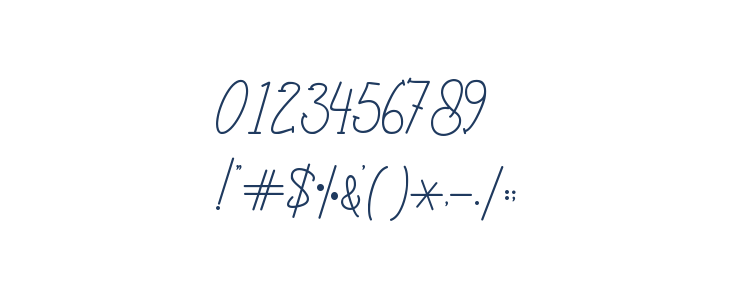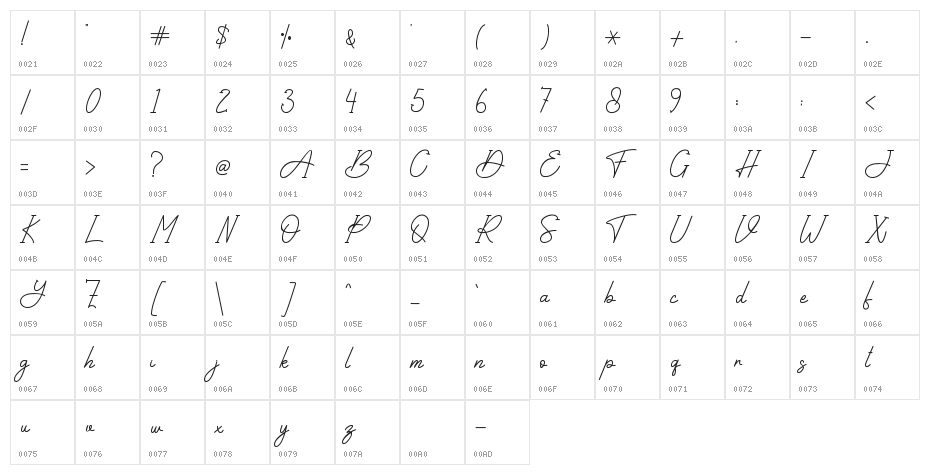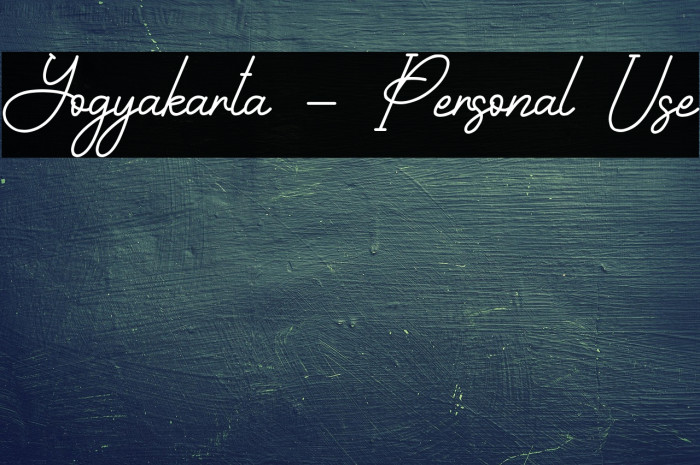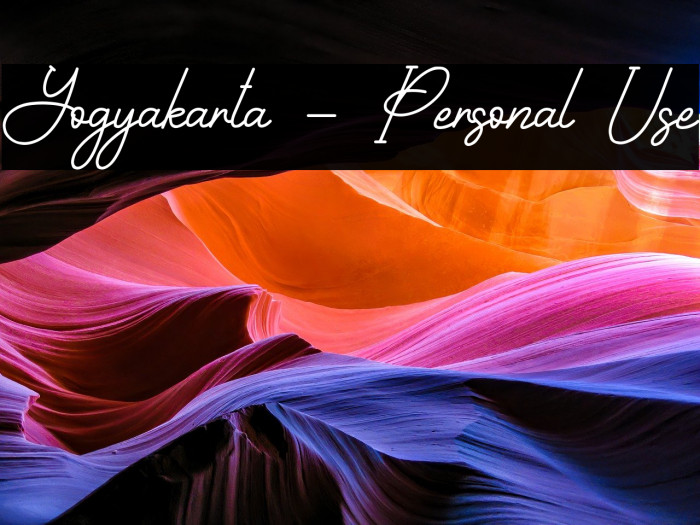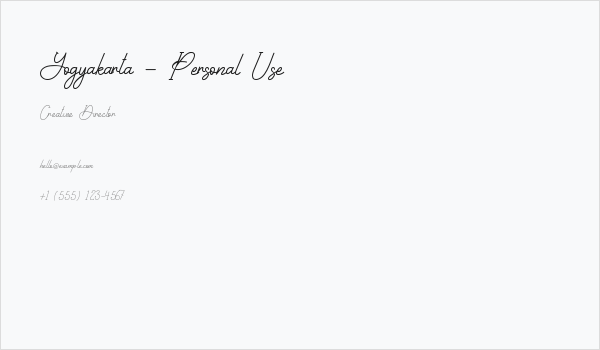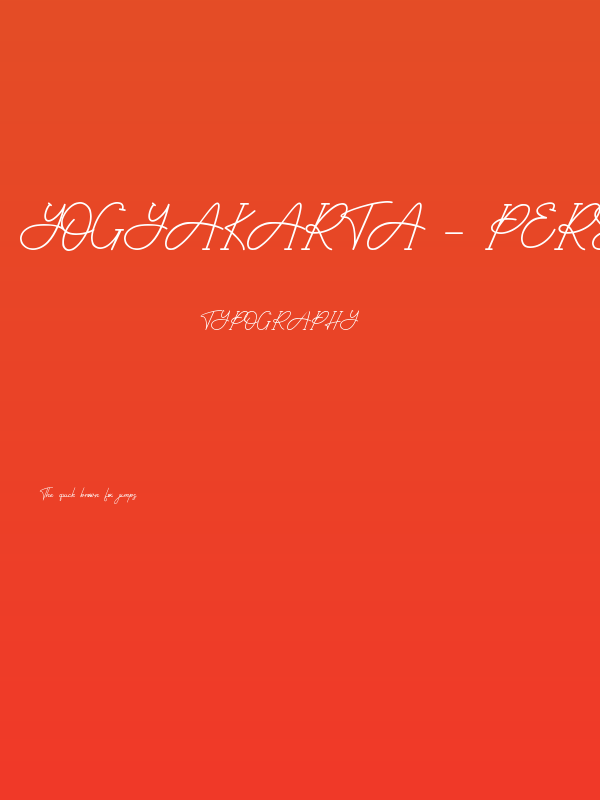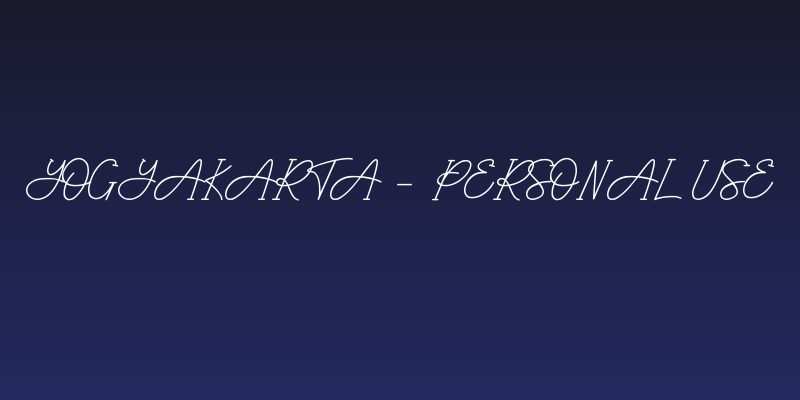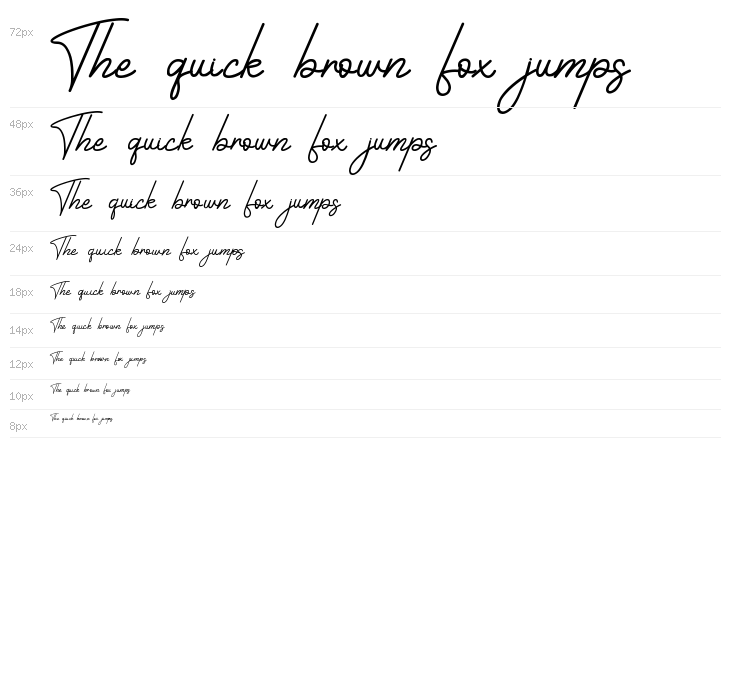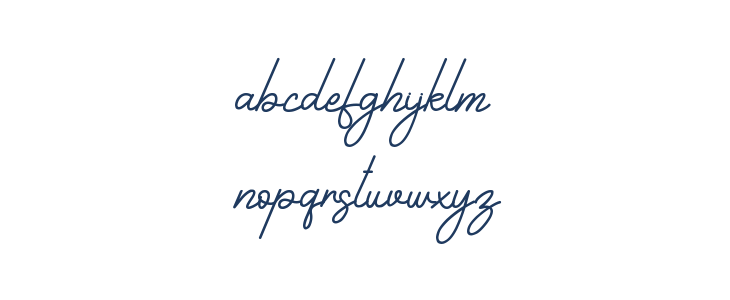
Yogyakarta - Personal Use Font
Yogyakarta - Personal Use Description
This font exudes elegance and fluidity, characterized by its cursive script style. The letters are interconnected, creating a seamless flow that mimics natural handwriting. The uppercase letters are slightly more embellished, with graceful loops and curves, while the lowercase letters maintain a consistent and smooth appearance. The numerals and special characters are designed to match the overall aesthetic, providing a cohesive look. This font is perfect for projects that require a personal touch, such as invitations, greeting cards, or branding materials that aim to convey sophistication and warmth.
| Overall Style | Elegant, Handwritten |
| Use Case | Headlines, Invitations, Personal Branding |
| Proposed Projects | Ideal for wedding invitations, personal branding, greeting cards, and elegant stationery. |